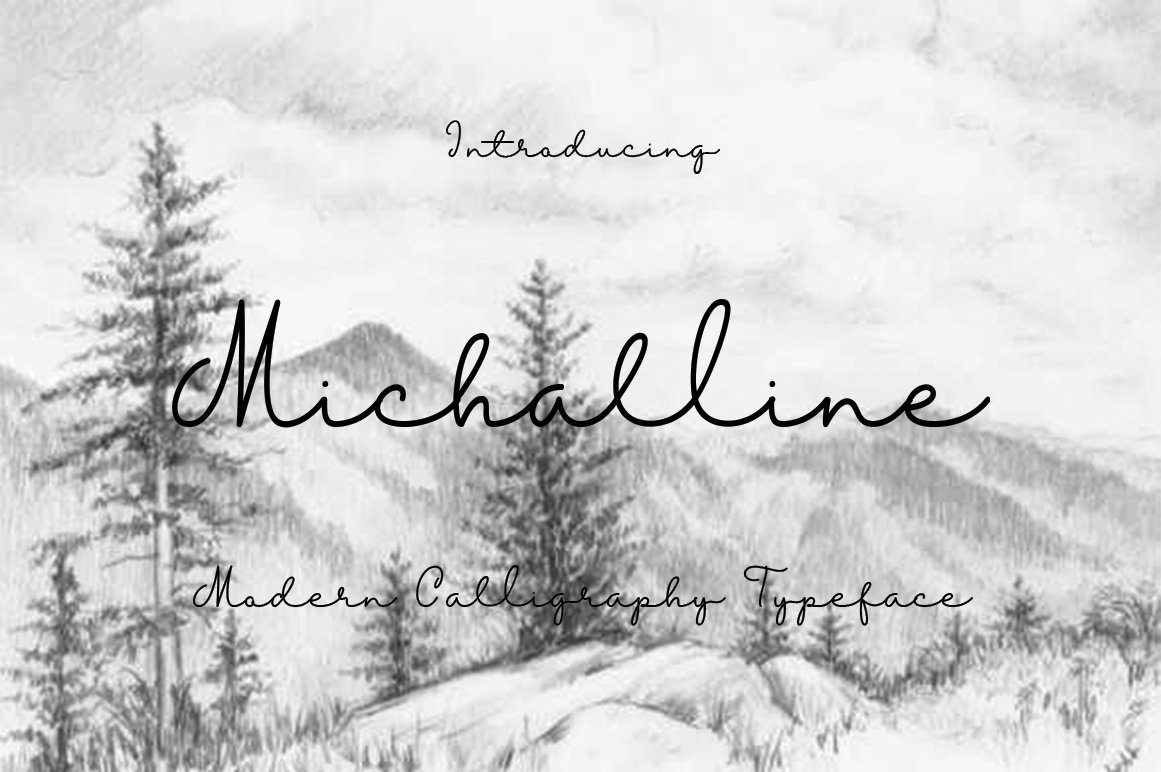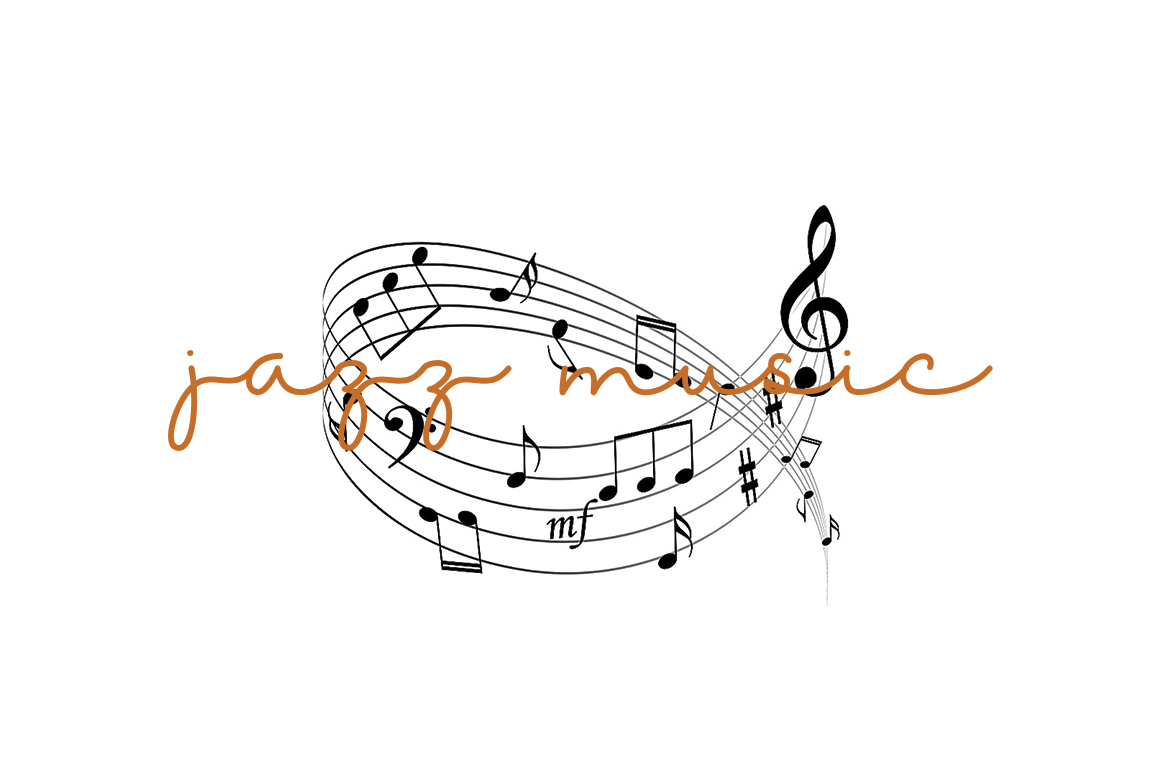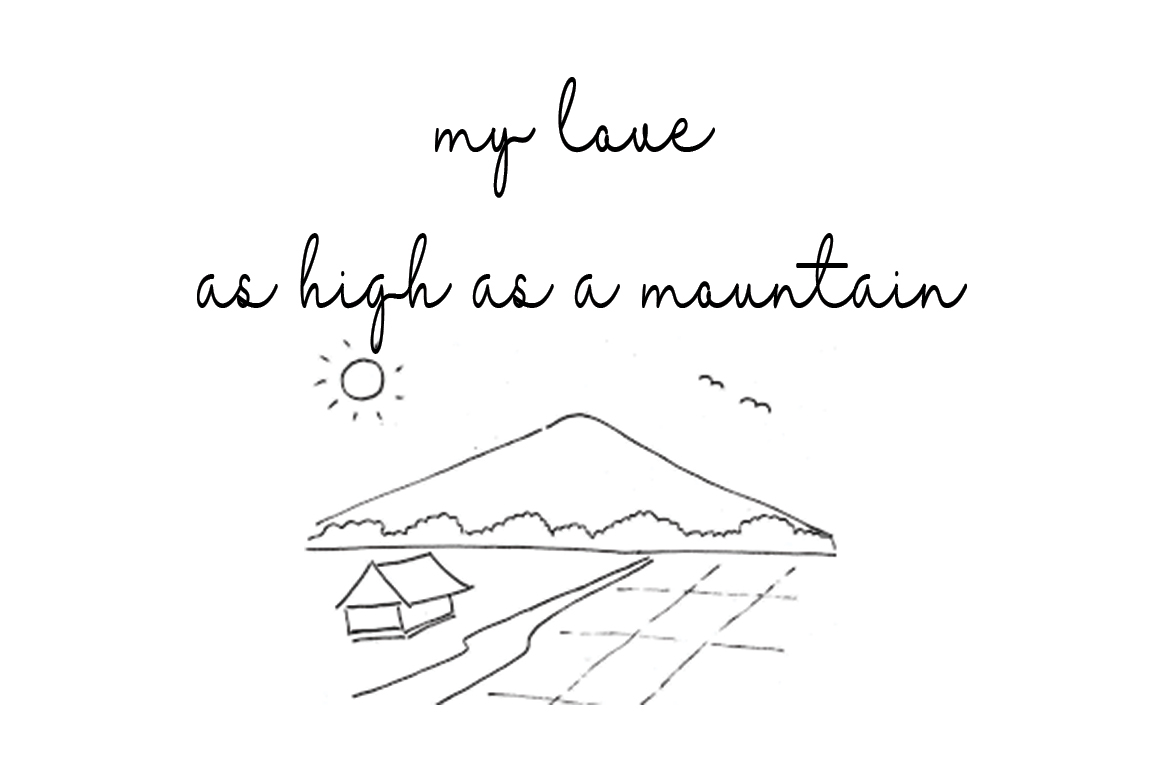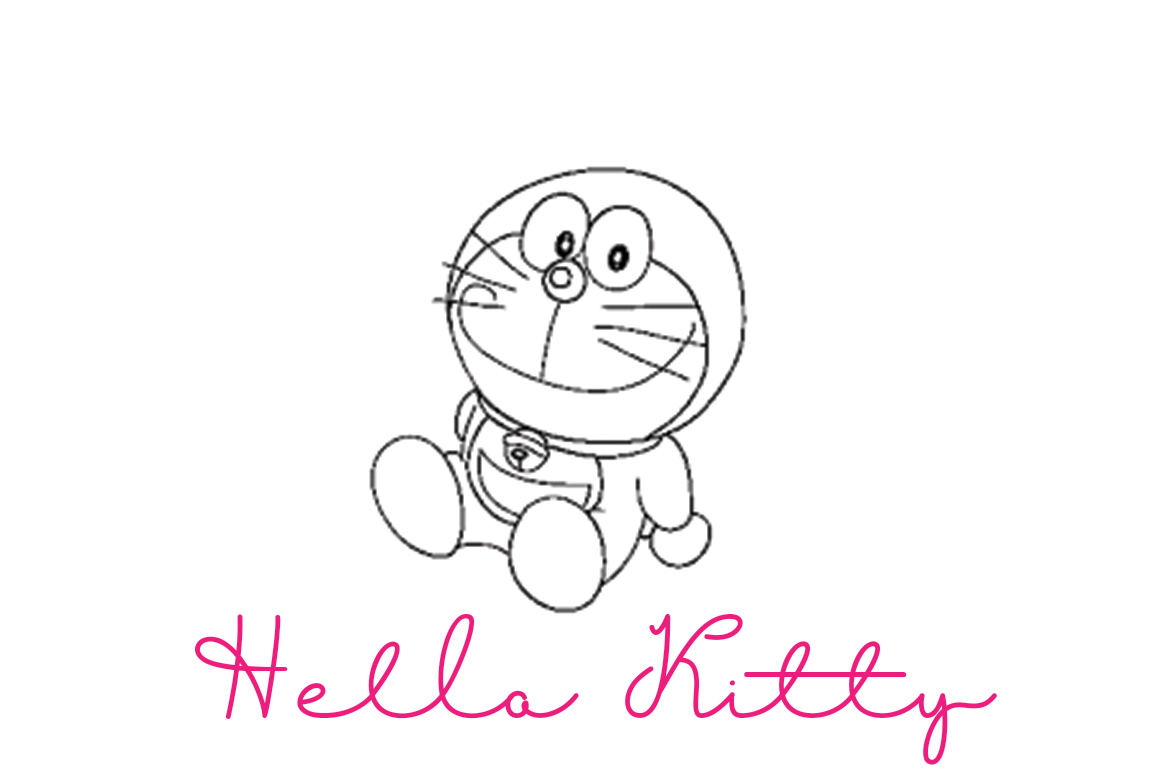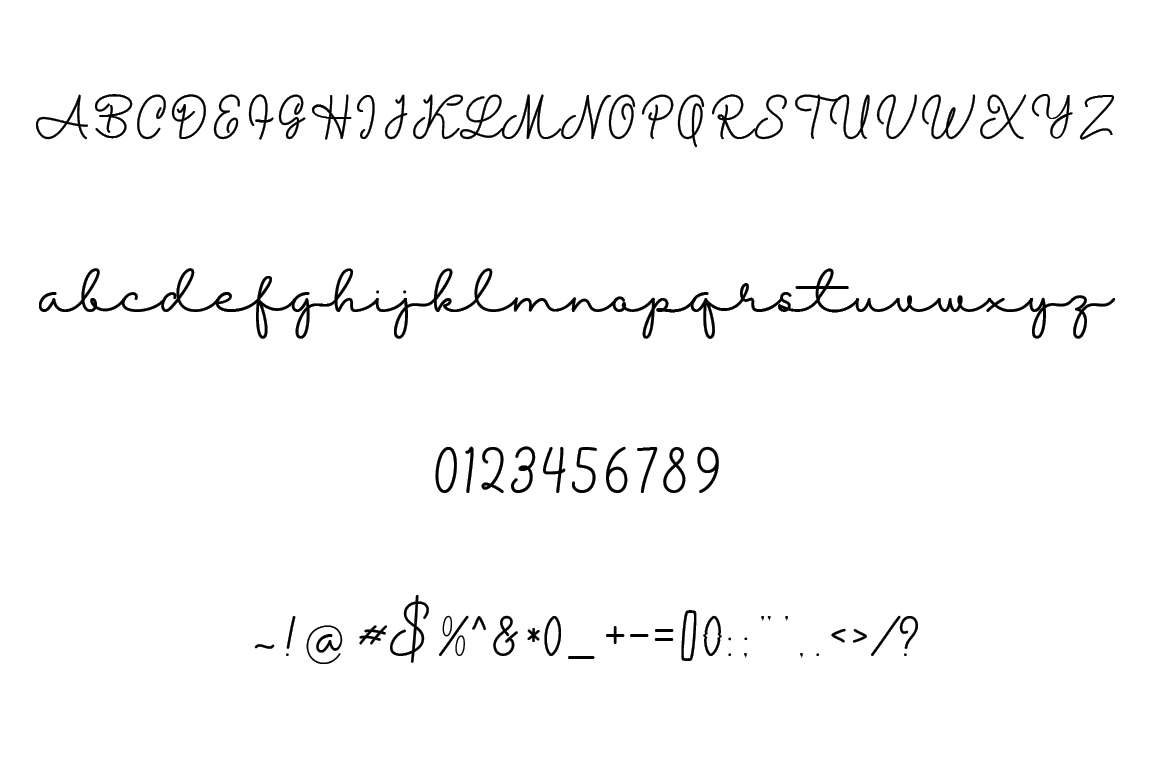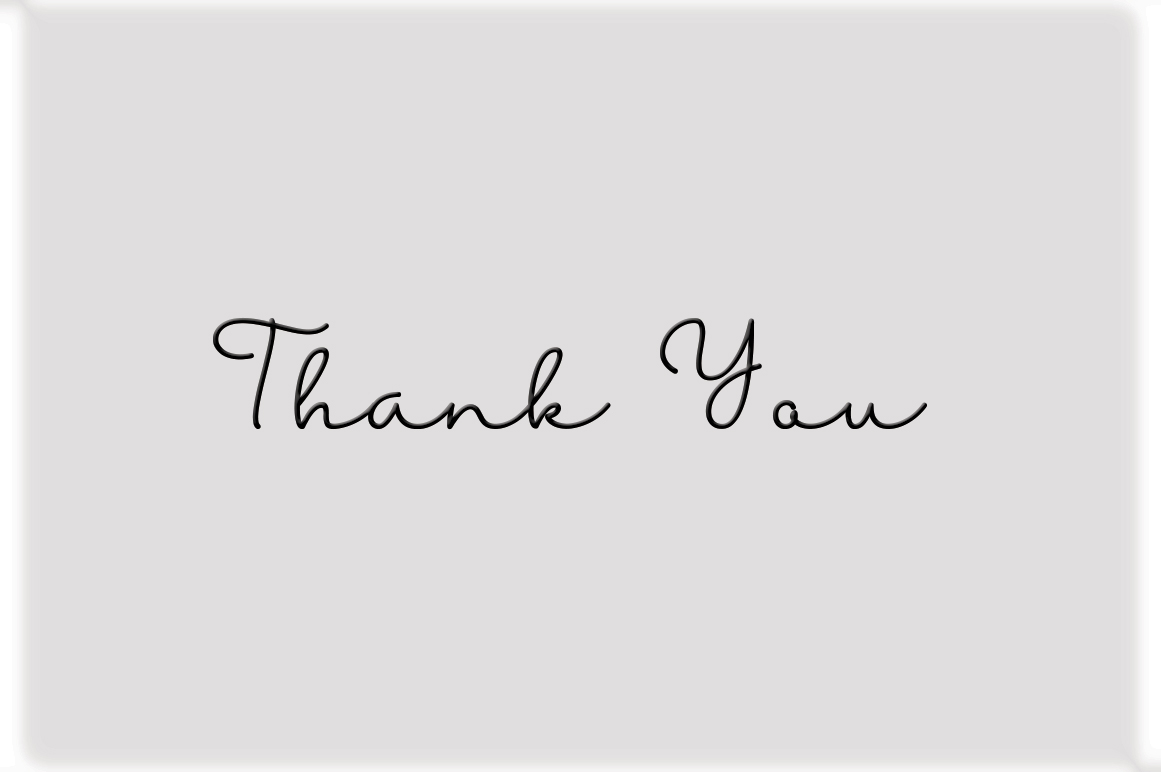
Michalline Font
About Michalline Font
Michalline is a cutesy, modern font that can giving a charming appeal to your designs. This thin, monoline font is suitable for friendly messages that are relaxed and carefree.